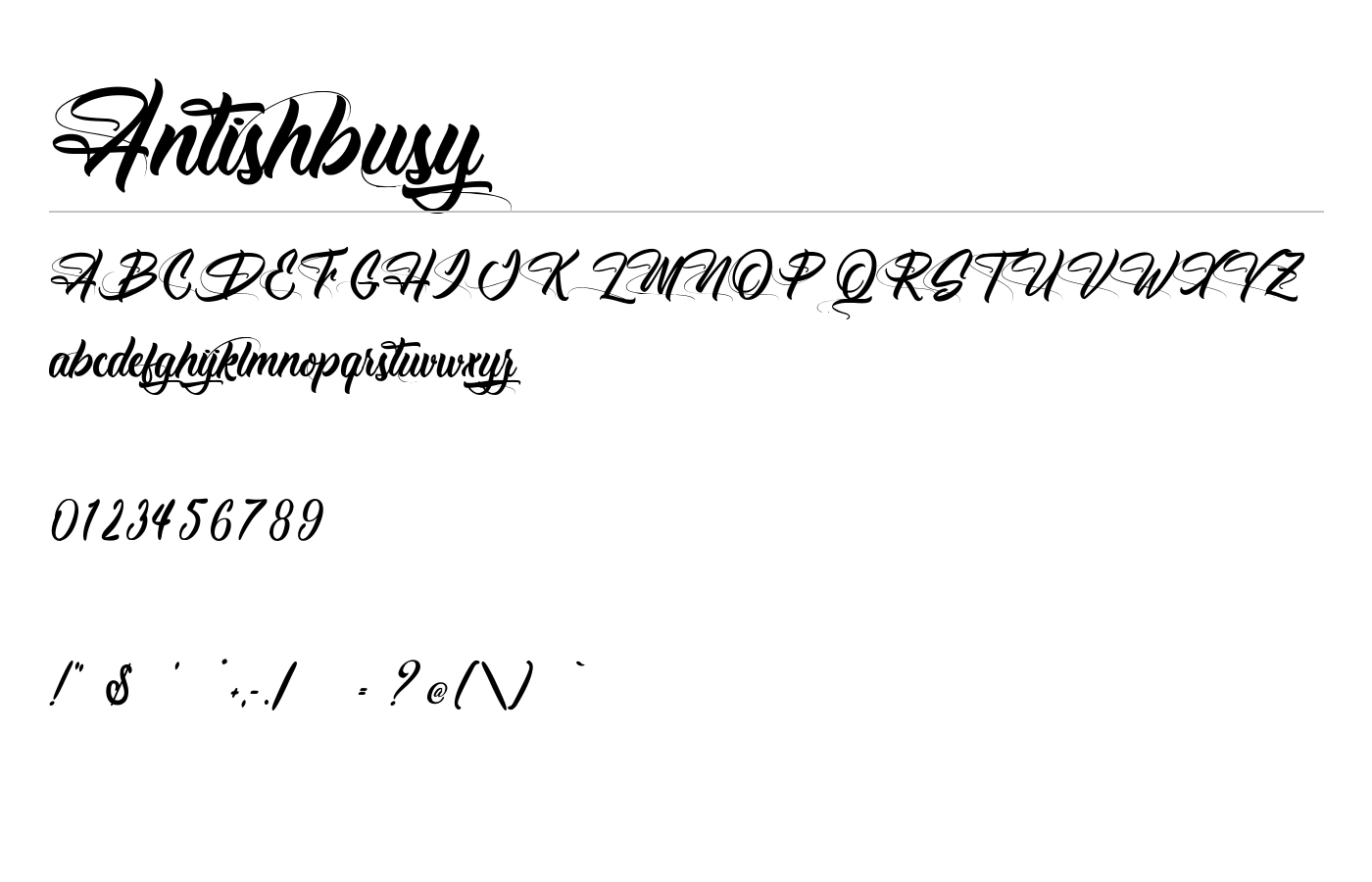
Antishbusy is an elegant script font with a flowing, calligraphic style that combines bold strokes and intricate swashes, giving it a luxurious and artistic feel. Its delicate contrasts and ornate letterforms make it ideal for sophisticated branding, invitations, and headlines where a touch of refined flair is desired. This font works best in decorative settings that benefit from its expressive and stylish personality.
Antishbusy Font
About Antishbusy Font
| Font family | Antishbusy Font |
| Designer | Typhoon Type - Suthi Srisopha |